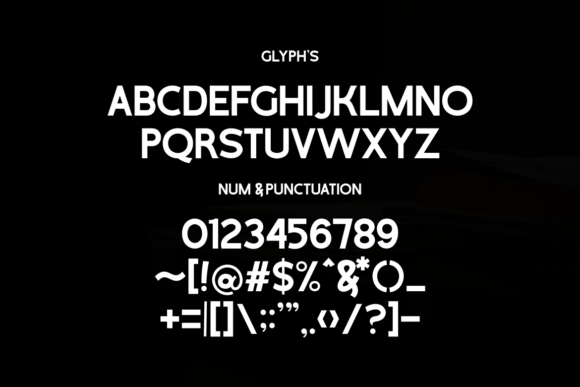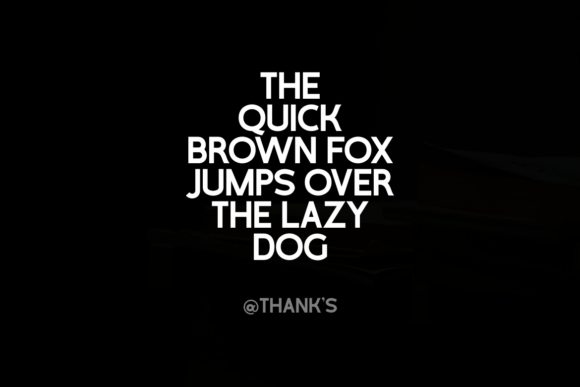
Unlock Bold Statements with DROGEST Font: Elevate Your Designs to New Heights
In the realm of typography, a font can make or break the visual impact of a design. For projects that demand confidence, strength, and a commanding presence, the DROGEST Font emerges as a game-changer. This robust and bold typeface is meticulously crafted to deliver striking clarity and powerful visual impact, making it an unbeatable choice for medium to large print media. Whether you’re a designer, a crafter, or a business looking to make a statement, DROGEST is here to take your creations to the next level.
The Power of DROGEST Font
DROGEST’s sturdy lines and structure are its defining features, providing a sense of indomiting strength to any design it is applied to. This font is not just about making a statement; it’s about making a lasting impression. Its bold confidence is palpable, making it perfect for projects that require a strong visual presence. From headings and titles to posters and billboards, DROGEST ensures that your message is delivered with clarity and impact.
Versatility and Compatibility
Crafting with DROGEST
For crafters and designers, finding the right font can often be a daunting task. DROGEST, however, checks all the boxes. Its bold nature makes it an excellent choice for handmade products, DIY projects, and personalized items. Whether you’re creating custom apparel, home decor, or stationery, DROGEST adds a professional touch that elevates your craft. Its readability ensures that your message or design elements are clear and understandable, even from a distance.
Design Tips with DROGEST
To make the most out of DROGEST Font, consider the following design tips:
- Pair with Simplicity: DROGEST’s boldness can be overwhelming if not balanced correctly. Pair it with simpler fonts for body text to maintain readability and visual harmony.
- Experiment with Sizes: DROGEST’s impact is not just in its boldness but also in its size. Experiment with different sizes to create visual hierarchy and emphasis.
- Play with Colors: While DROGEST shines in its default form, experimenting with colors can add another layer of depth to your design. Consider contrasting colors to make your text pop.
DROGEST Font is more than just a typeface; it’s a statement. It’s a declaration of boldness, confidence, and strength. Whether you’re a designer looking to make an impact, a business aiming to stand out, or a crafter seeking to add a professional edge to your handmade projects, DROGEST is your go-to font. Its versatility, compatibility, and striking appearance make it a valuable addition to your design toolkit. So, take your designs to the next level with DROGEST Font and make your mark with confidence and style.
Discover the power of DROGEST today and transform your designs with a font that truly stands its ground.